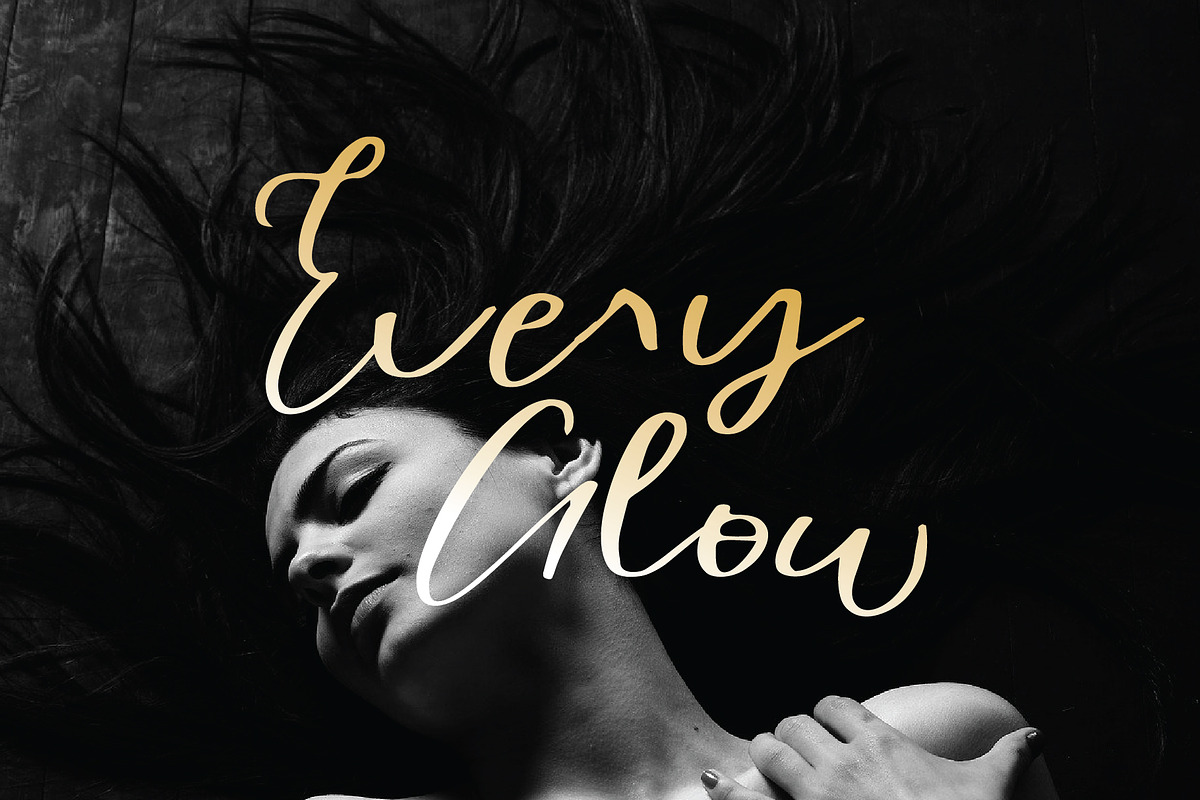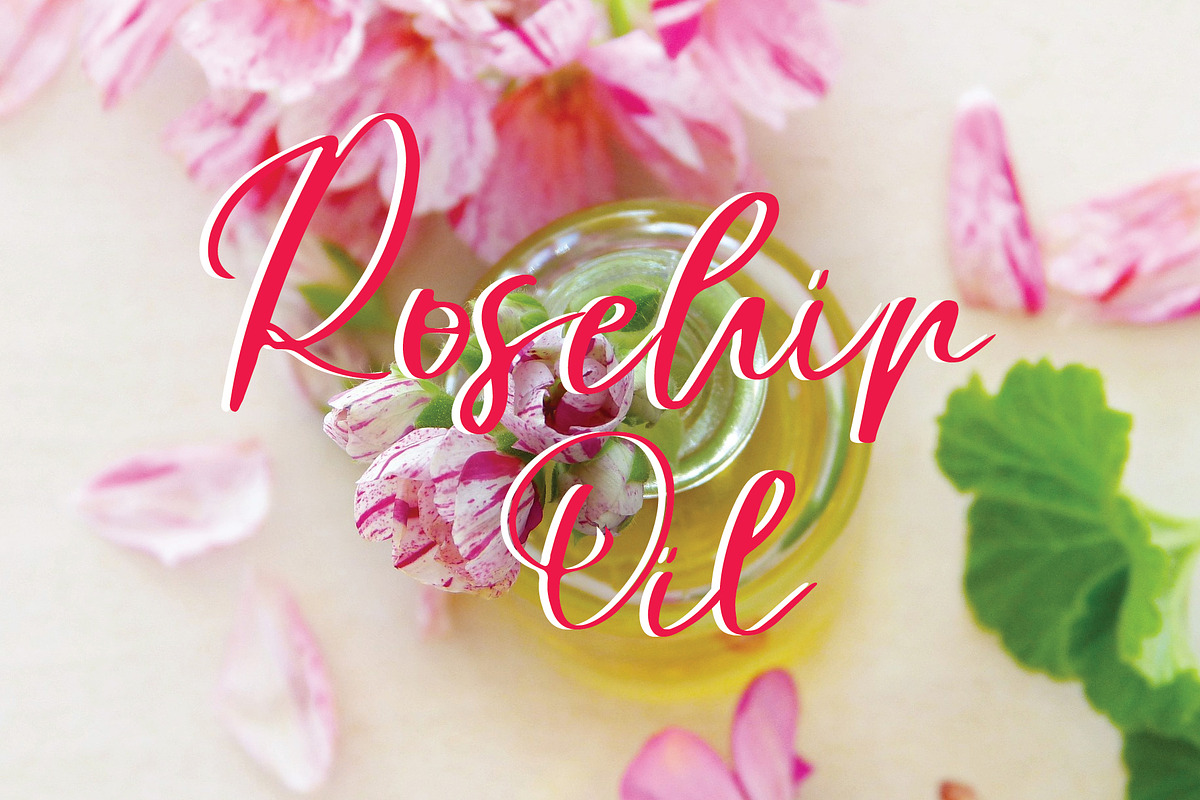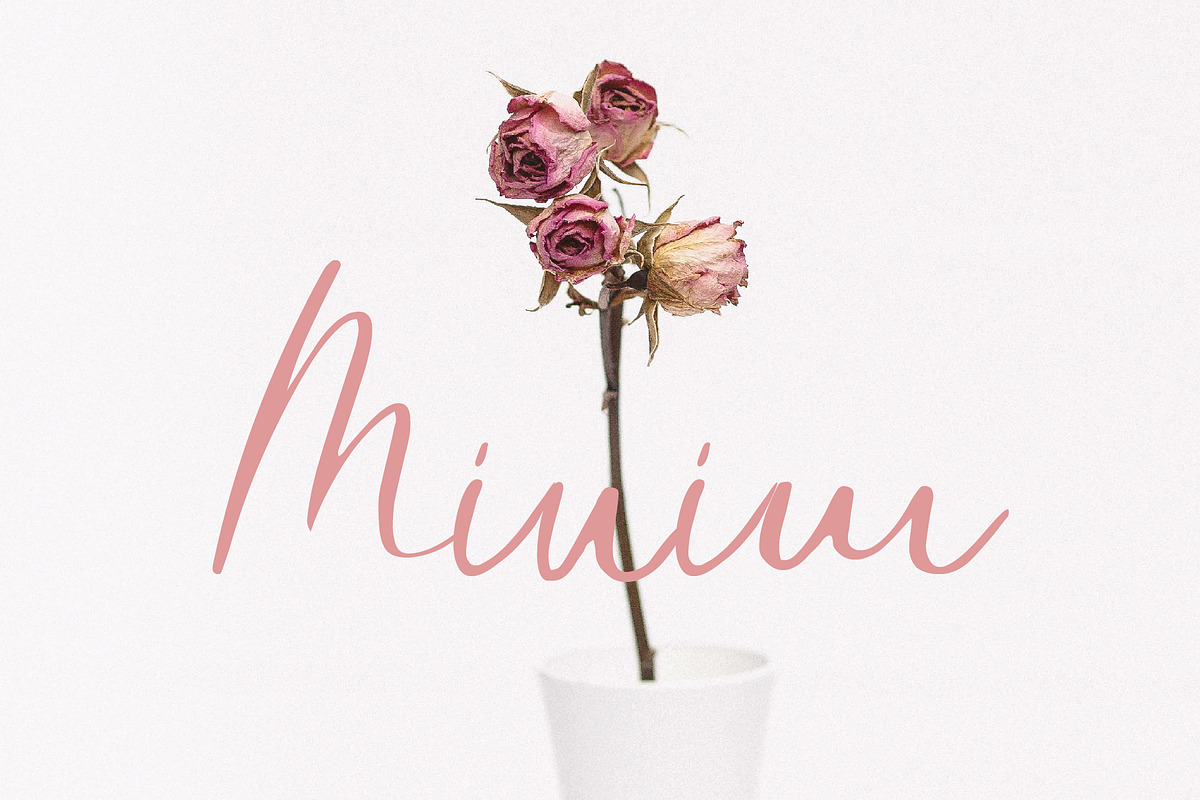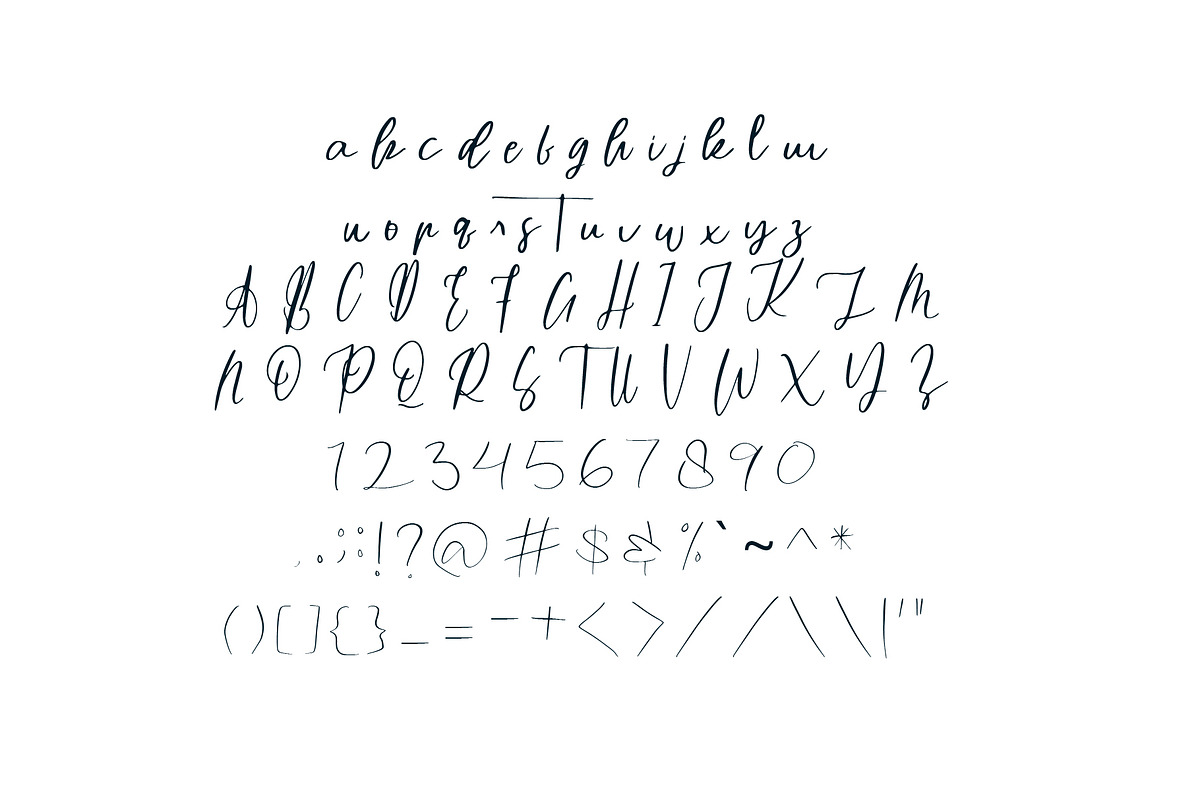
Minim Font
Minim Font by Goodigital13 is a font selected for branding, posters, packaging, typography.
Minim Font by Mariyana fits naturally into Branding, posters, packaging, typography.